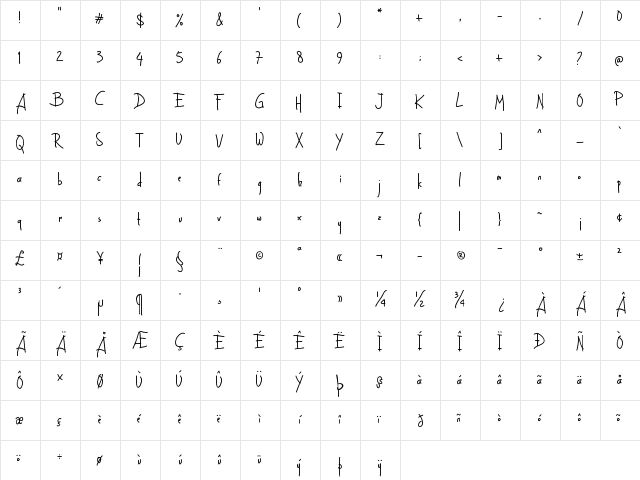
Lazy Gogo Regular
| Foundry | Darwinoo |
| Designer | Darwinoo |
Design Context for Lazy Gogo Typeface
Lazy Gogo is a composed and adaptable typeface that performs quietly and consistently across a wide range of design contexts.